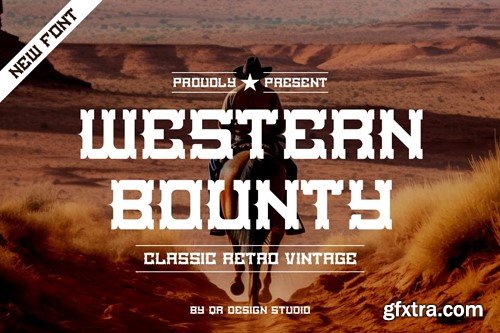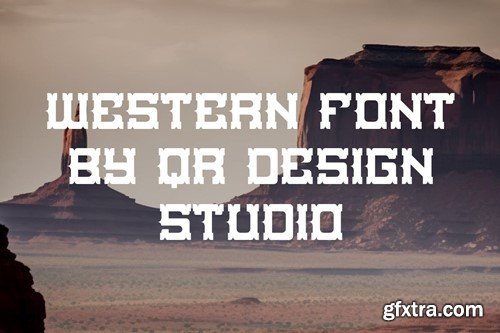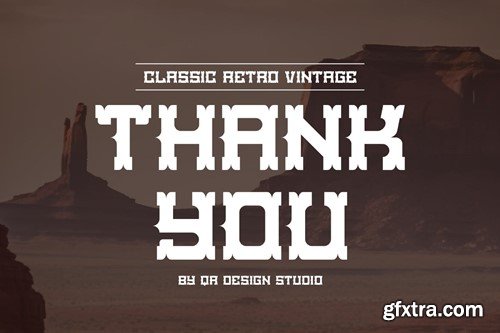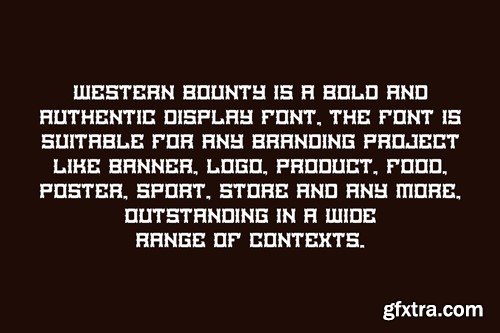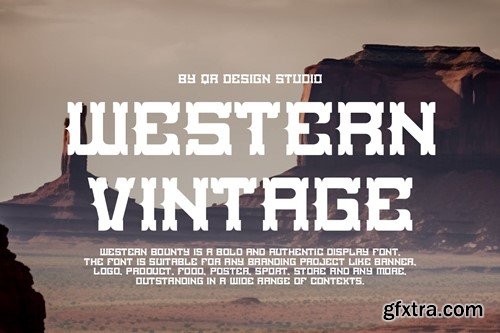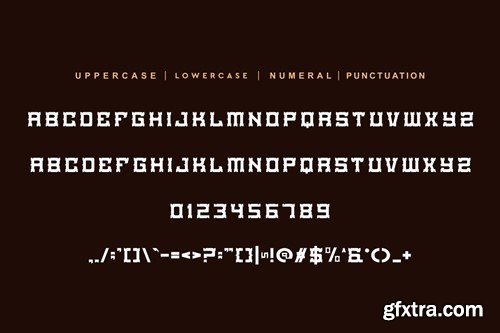
西部丰饶 - 经典字体Font 626T8AW
Western Bounty - Classic Typeface Font 626T8AW
Western Bounty - Classic Typeface Font
Western Bounty - Classic Typeface Font is a bold and authentic display font. The font is suitable for any branding project like poster, logo, sport, and many more. Outstanding in a wide range of contexts.